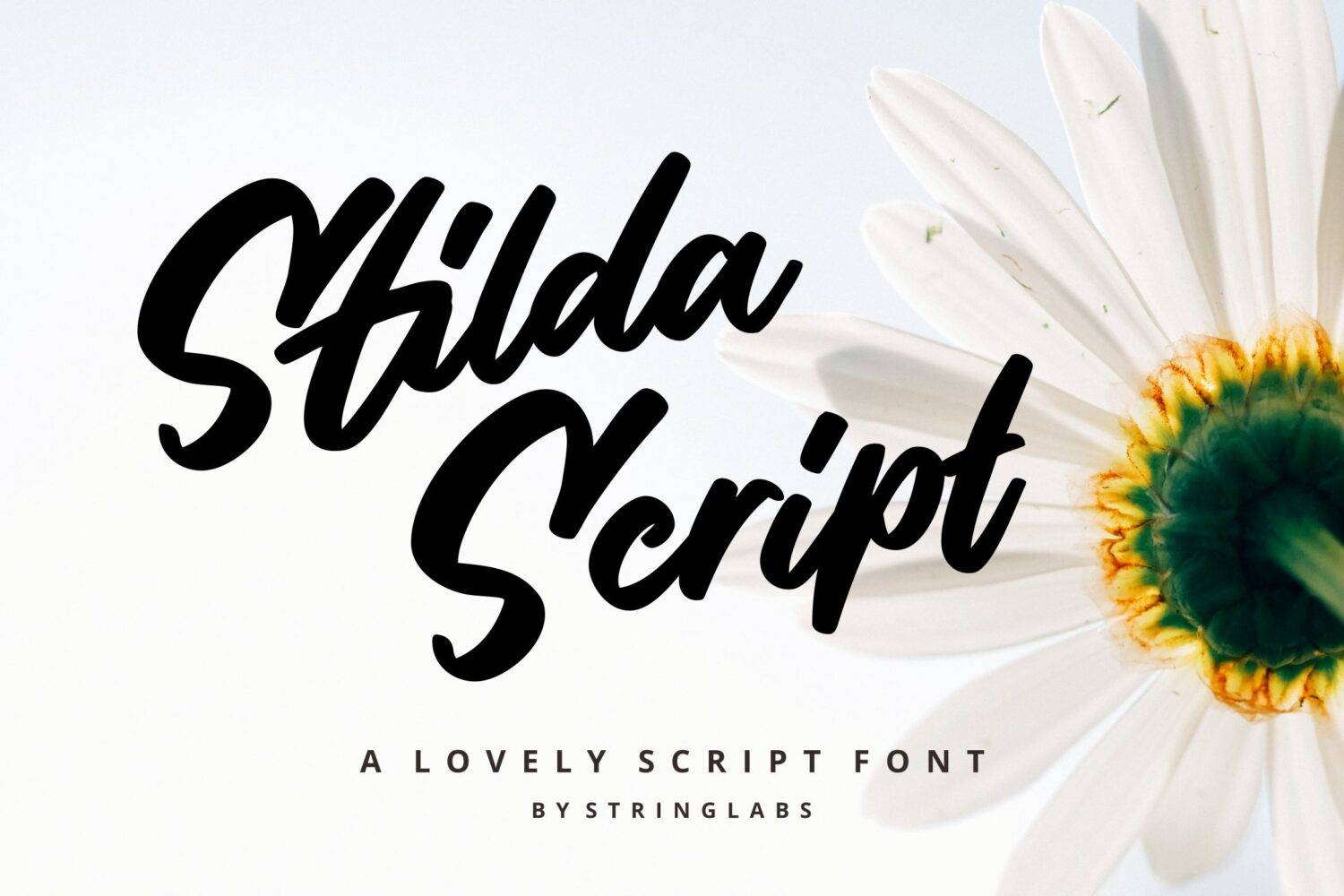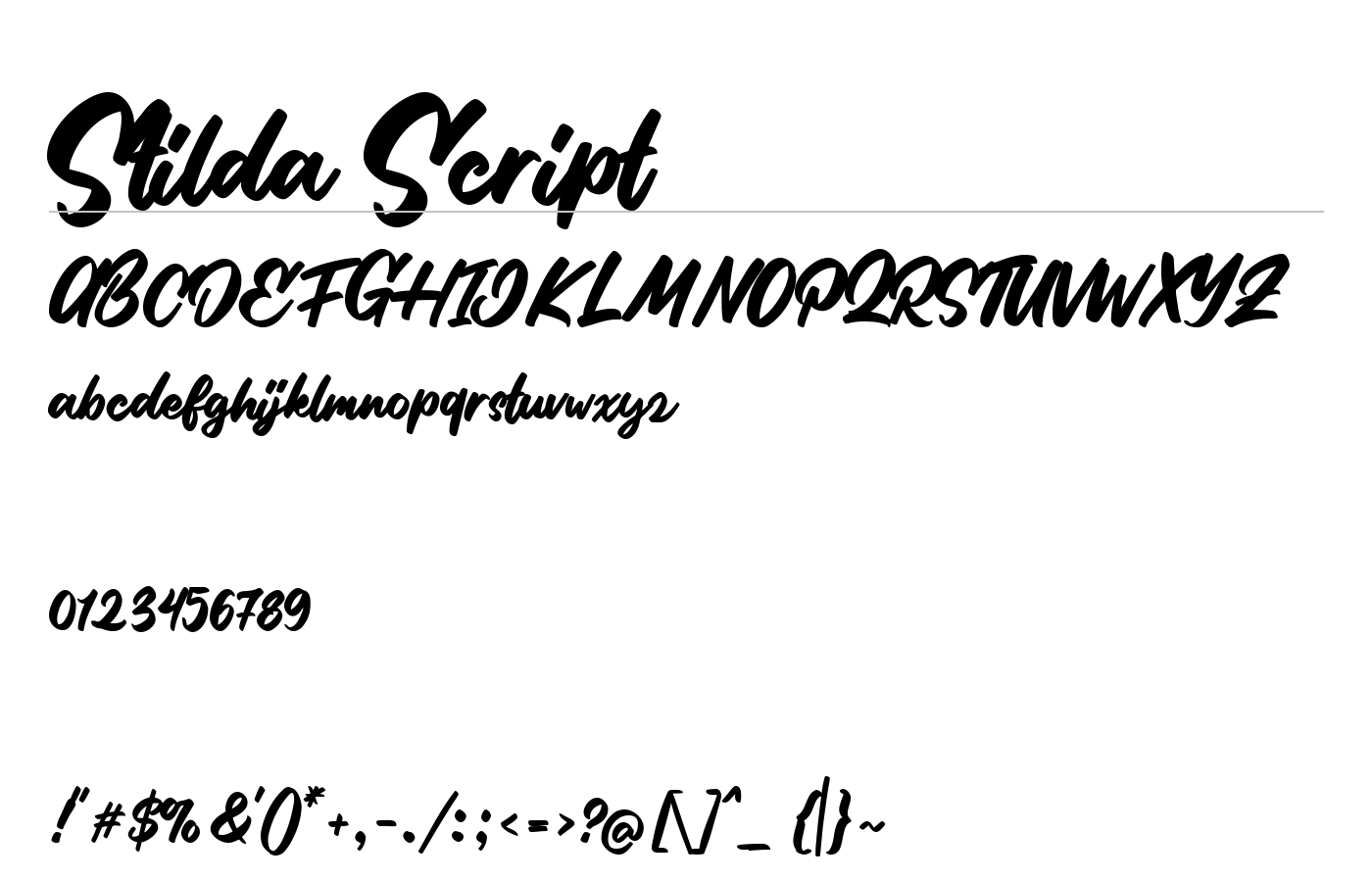
Stilda Font is a bold, cursive script that features smooth, rounded strokes with a lively and energetic flair. Its handwriting style and slightly condensed letters make it perfect for projects that need a personal, stylish touch, such as branding, posters, and social media graphics. This font’s playful yet confident personality works well in creative and informal designs where a sense of warmth and friendliness is desired.
Stilda Font
About Stilda Font
| Font family | Stilda Font |